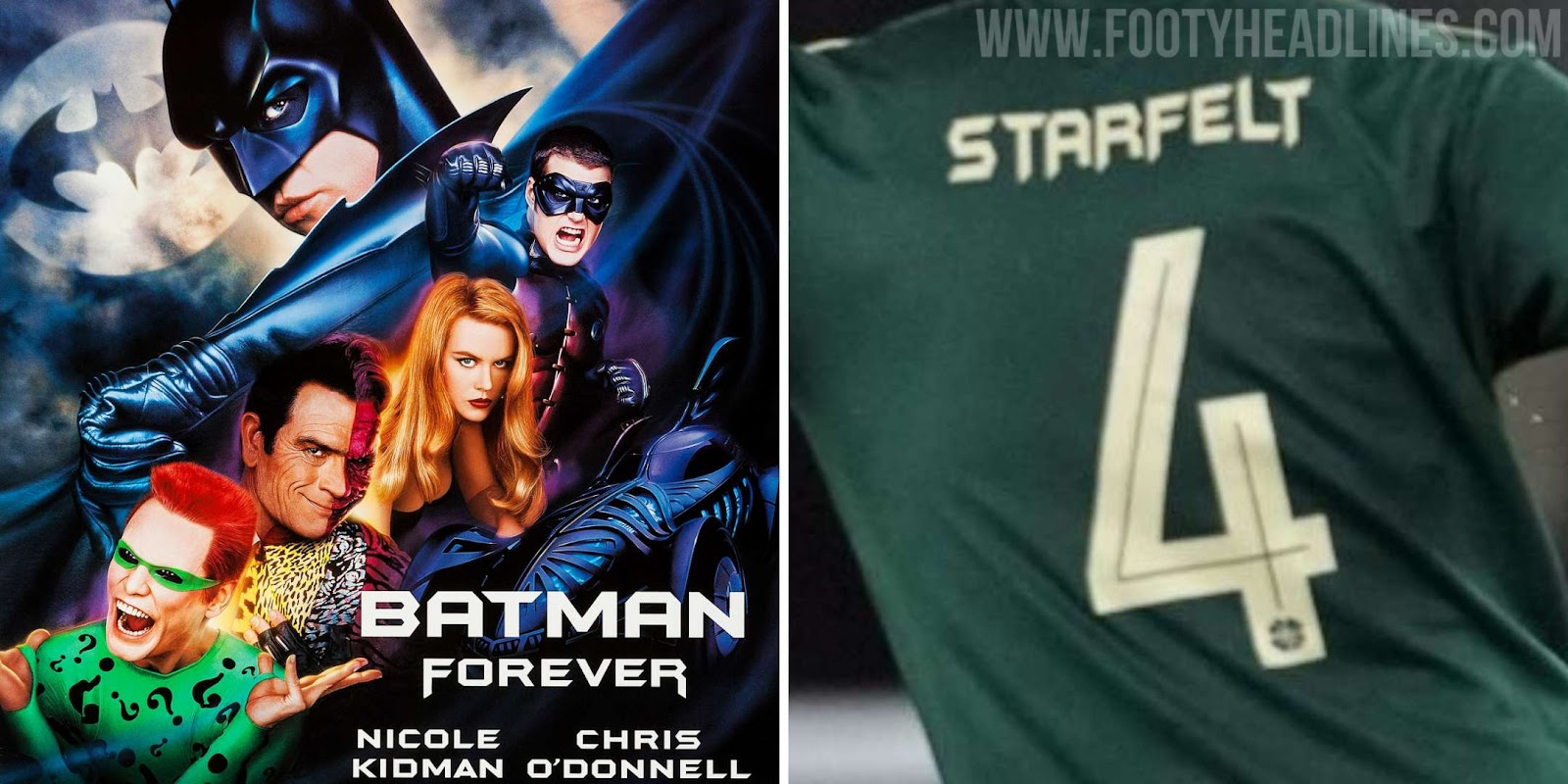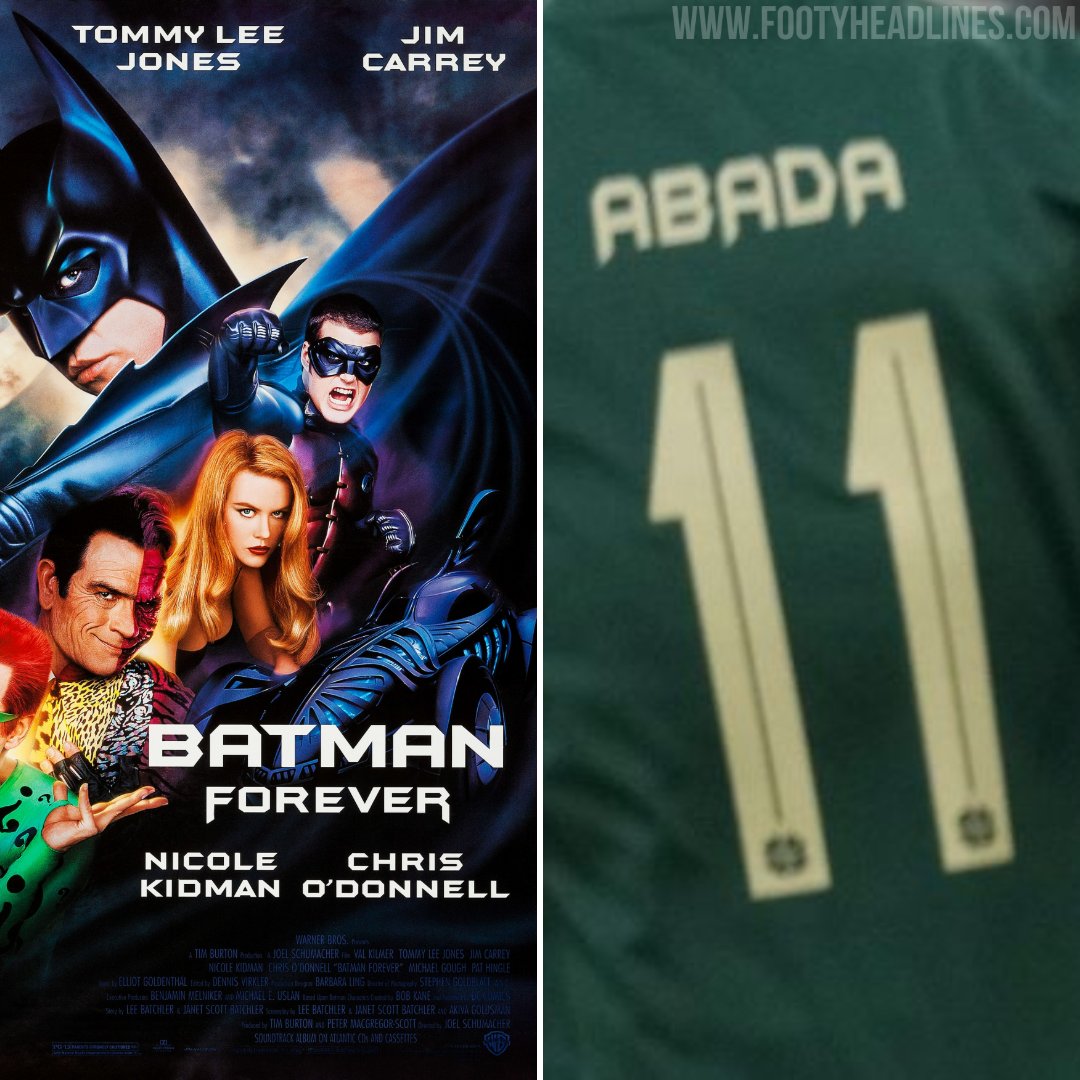
Celtic 21-22 International Kit Font Revealed - Inspired by Batman Forever
Celtic will wear the font in the Europa League only
Celtic will wear the typeface in the 2021-22 Europa League (and possibly in the UEFA Europa Conference league), while they use the league-wide typeface in the Scottish Premiership and cup.
Celtic FC 21-22 Kit Typeface
A very special look, the Celtic 21-22 kit typeface is closely inspired by Batman. The letters are inspired by the typeface used for Batman Forever, while the numbers have the style of the Agency FB font.